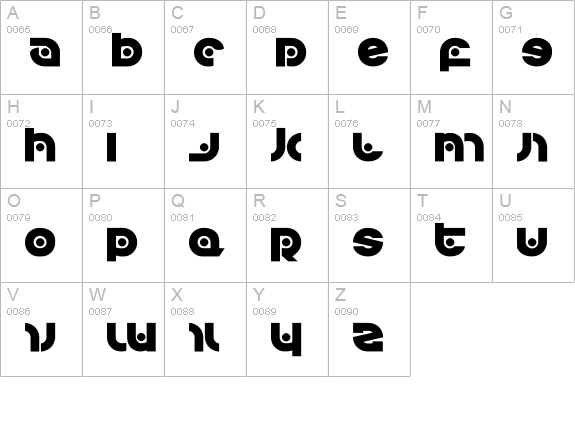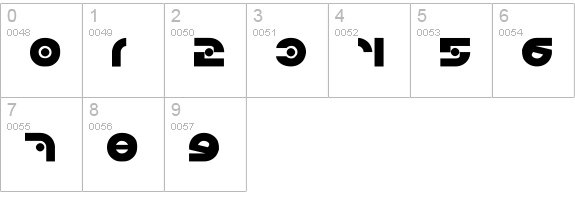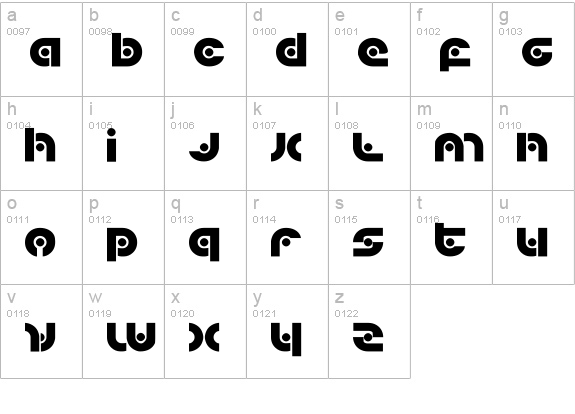
Kovacs Spot Font Details
Kovacs Spot font is a modern and stylish typeface that adds a touch of sophistication to any design project. With its unique spot effect, this font exudes a sense of creativity and innovation. The elegant curves and sharp edges of Kovacs Spot font make it perfect for logos, branding, posters, and more. What's even better is that Kovacs Spot font is completely free! You can download this stunning font at FontsMarket.com and use it in your personal or commercial projects without any limitations. Don't miss out on the opportunity to enhance your designs with the beauty and versatility of Kovacs Spot font.